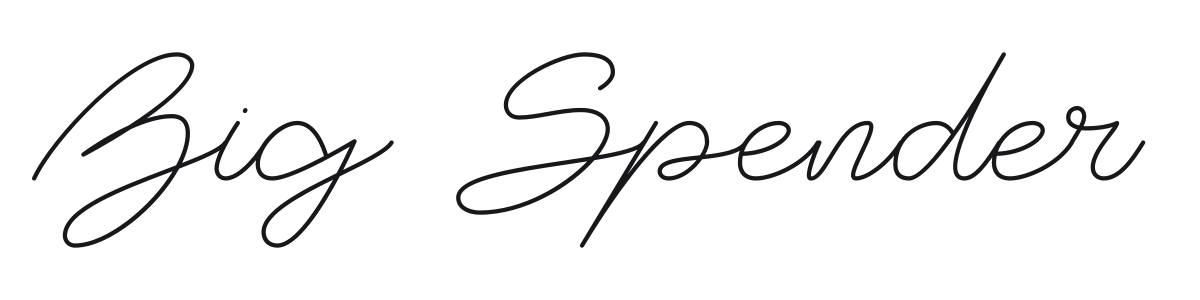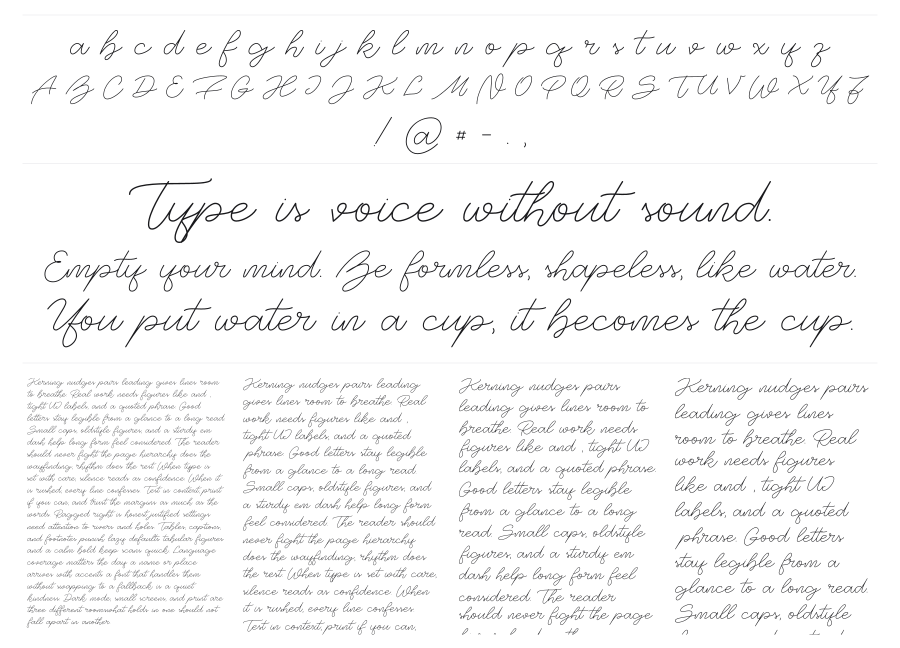
Big Spender
Big Spender is a flowing thin cursive script designed to evoke the feel of a personal signature. Its long looping strokes and delicate monoweight line give it the relaxed elegance of someone signing a check with confidence. It works at large sizes where the sweeping rhythm has room to breathe.